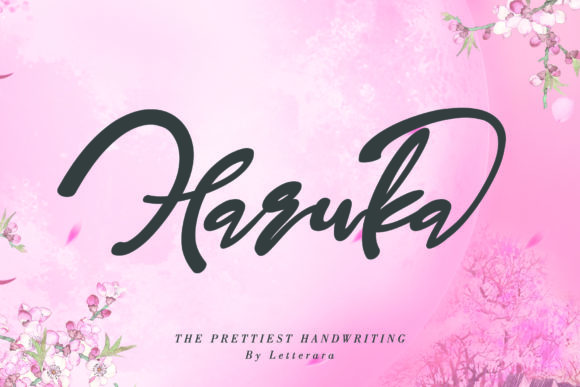
Unveil Haruka Font – a masterful symphony of Japanese Kimono artistry, designed with an audacious, bold exterior that commands attention. This script font, inspired by the rich tapestry of Japanese fashion, is a testament to the exquisite craftsmanship and meticulous attention to detail that defines the world of calligraphy.
With its sweeping lines and graceful curves, Haruka Font breathes life into academic posters, instantly elevating the ordinary into the extraordinary. This font's dynamic presence and magnetic charm will capture any audience, making your posters stand out in a sea of mediocrity.
Imagine your words flowing gracefully across the page, wrapped in the elegance and sophistication of Haruka Font. Its distinctive style, reminiscent of the ancient art of calligraphy, adds a touch of refinement and a sprinkle of uniqueness to any project.
Let Haruka Font take you on a journey through the realm of creativity, enabling you to express your ideas with unrivaled impact. Its carefully crafted characters evoke a sense of luxury and prestige, transforming your posters into works of art that leave a lasting impression.
Don't settle for mundane fonts that fail to inspire. Embrace the beauty and power of Haruka Font, and embark on a creative adventure that will redefine your understanding of typography. Experience the allure of Japanese artistry, the intrigue of calligraphy, and the satisfaction of crafting posters that truly shine.